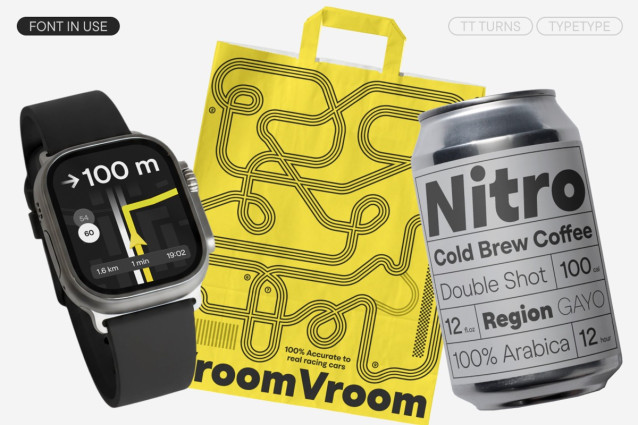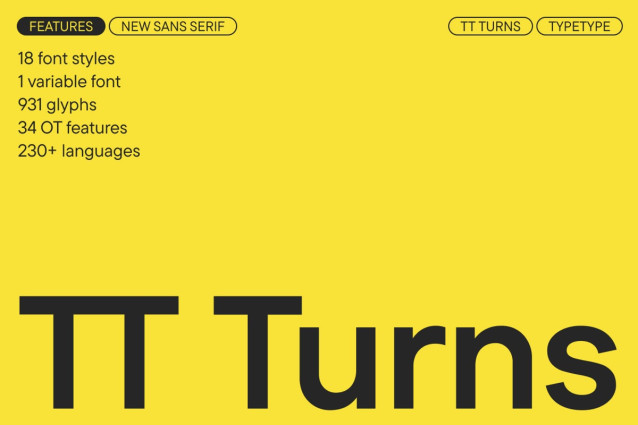
TT Turns Font Family
TT Turns Font Family — foundational and striking all at once! TT Turns is a geometric sans serif with distinctive rounded glyphs and expressive overhanging elements. This versatile font has a concise appearance and is highly readable at small sizes, while at large point sizes, it becomes a display font and reveals its character to the fullest. It’s energetic, strong, and dynamic—a quality that is especially evident in the italic font styles. In ‘Kk’ and ‘Жж’, the diagonals meet the stem at a steep angle, creating a striking triangle of white space. This adds a sharp quality to the design